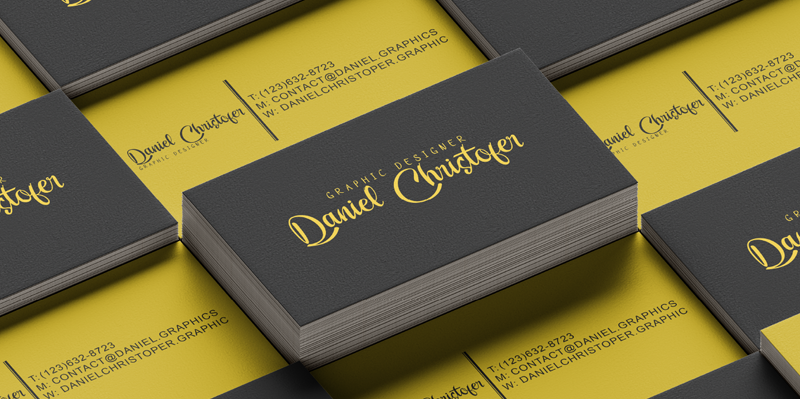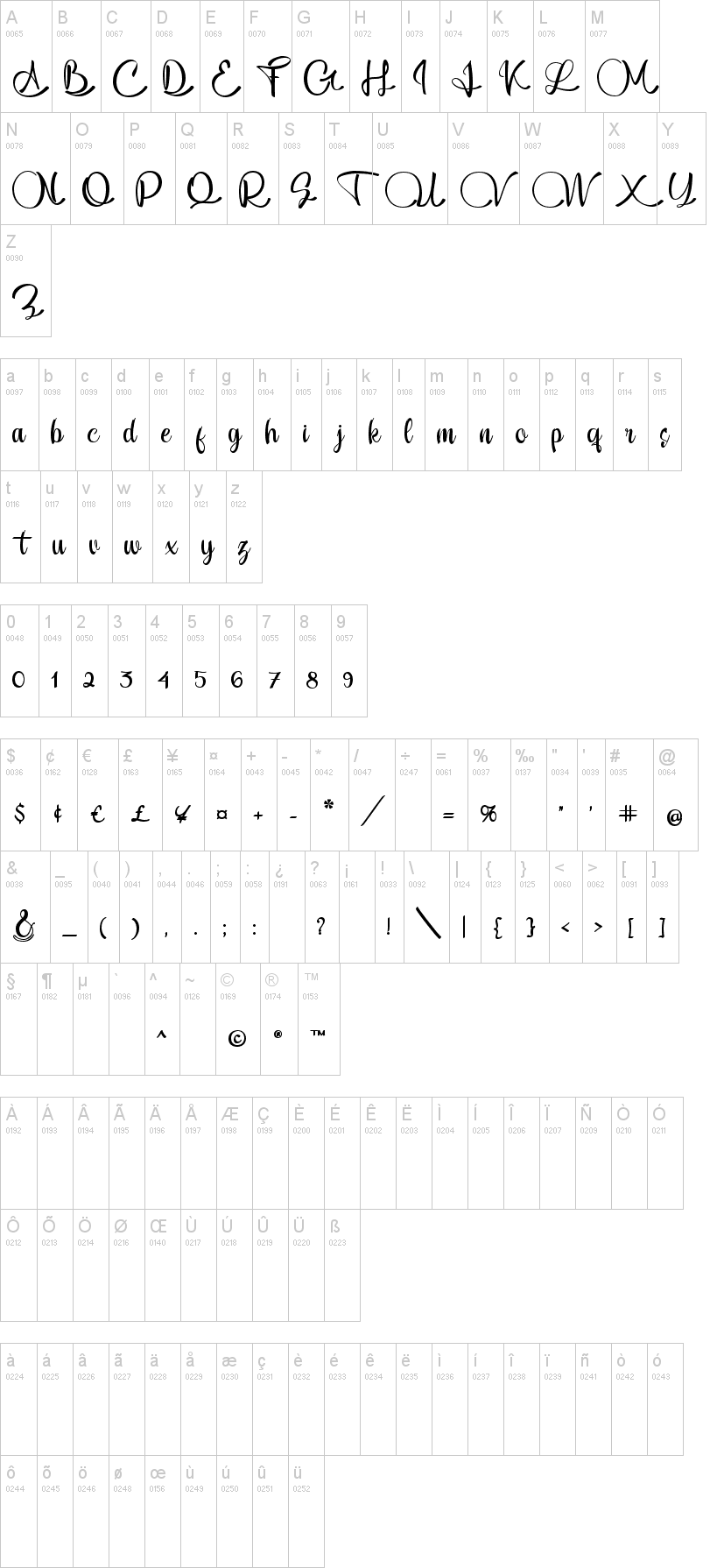
Note of the authorFeisty (2020) is a straight script bold using magic OpenType automatically at mimic real hand lettering. Use it for magazine, fashion, invitations, greeting cards, bussines card, logo, t-shirt, web banner, book cover, campaign and watermark photography.
Presents an advanced OpenType to automatically choose the appropriate letter shape as you type based on whether the letter appears at the beginning, middle or end of a word. The width of the bar in the lowercase "t" can be changed as desired.
Has two different styles of caps: Normal caps, which are the same style as the lowercase; and a type of Comic font, plain caps for setting acronyms, roman numerals or any other case that calls for all caps.
With extended language support for most Latin-based Western and Central European languages.Automatic all fractions.